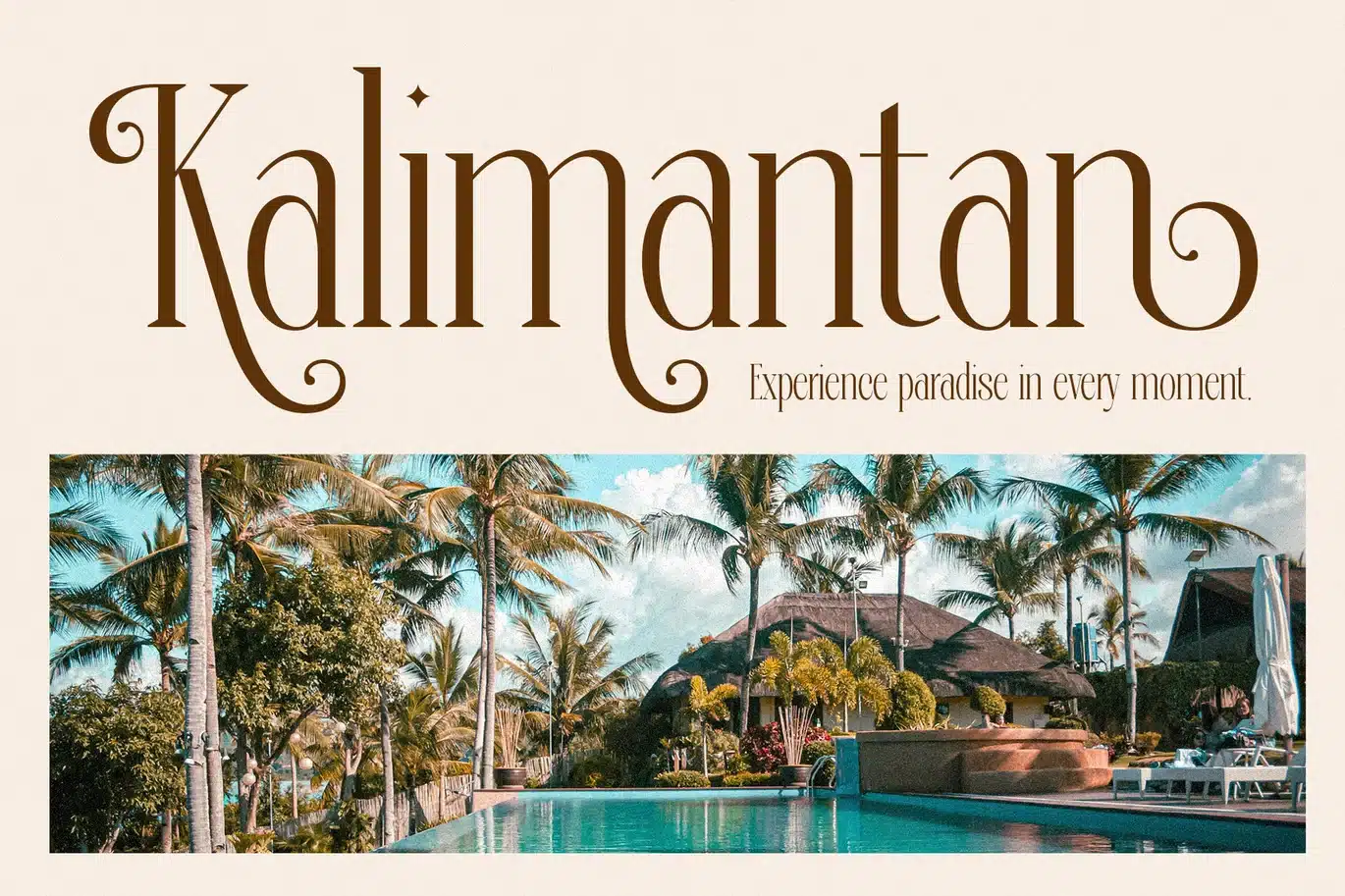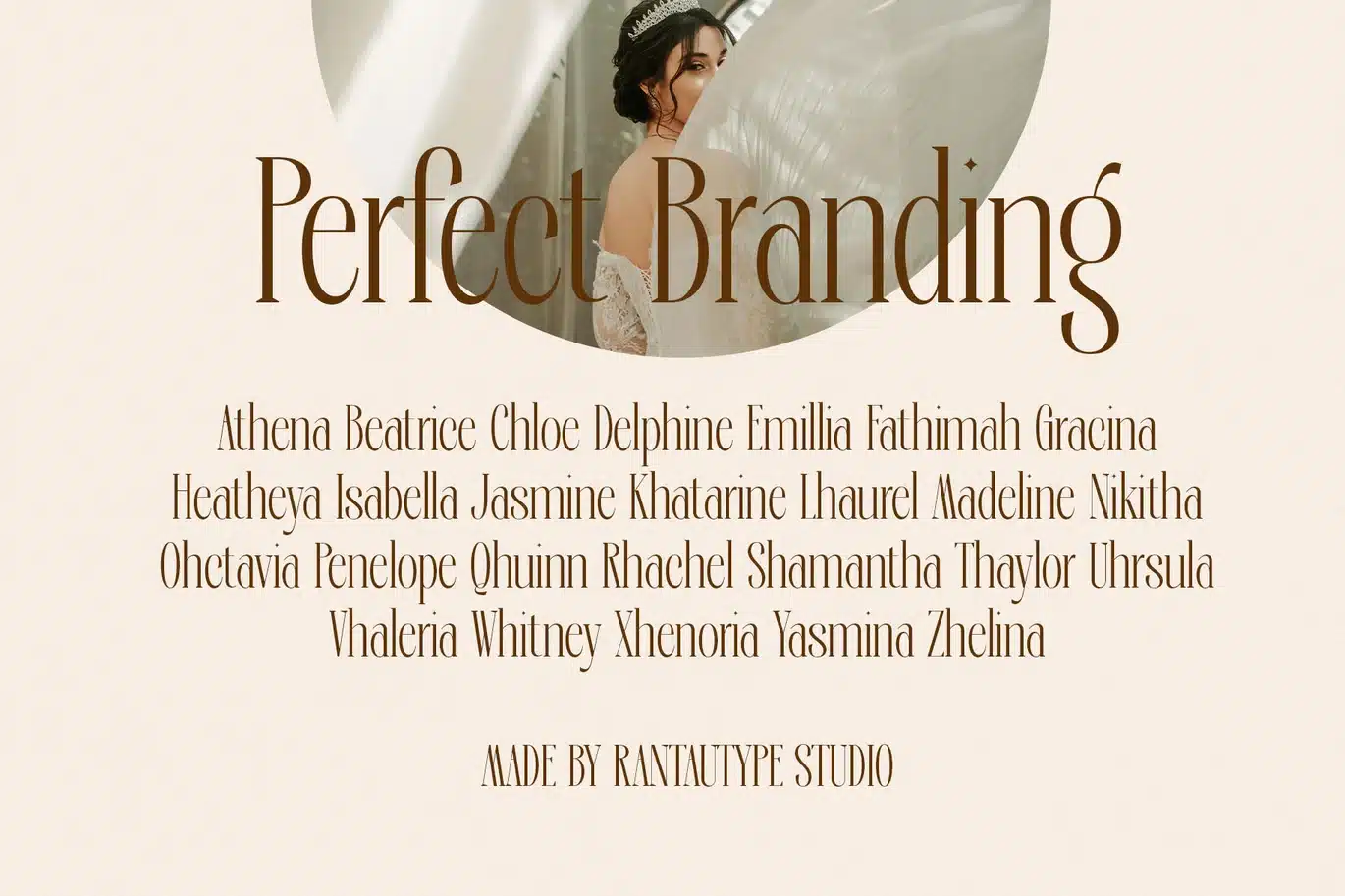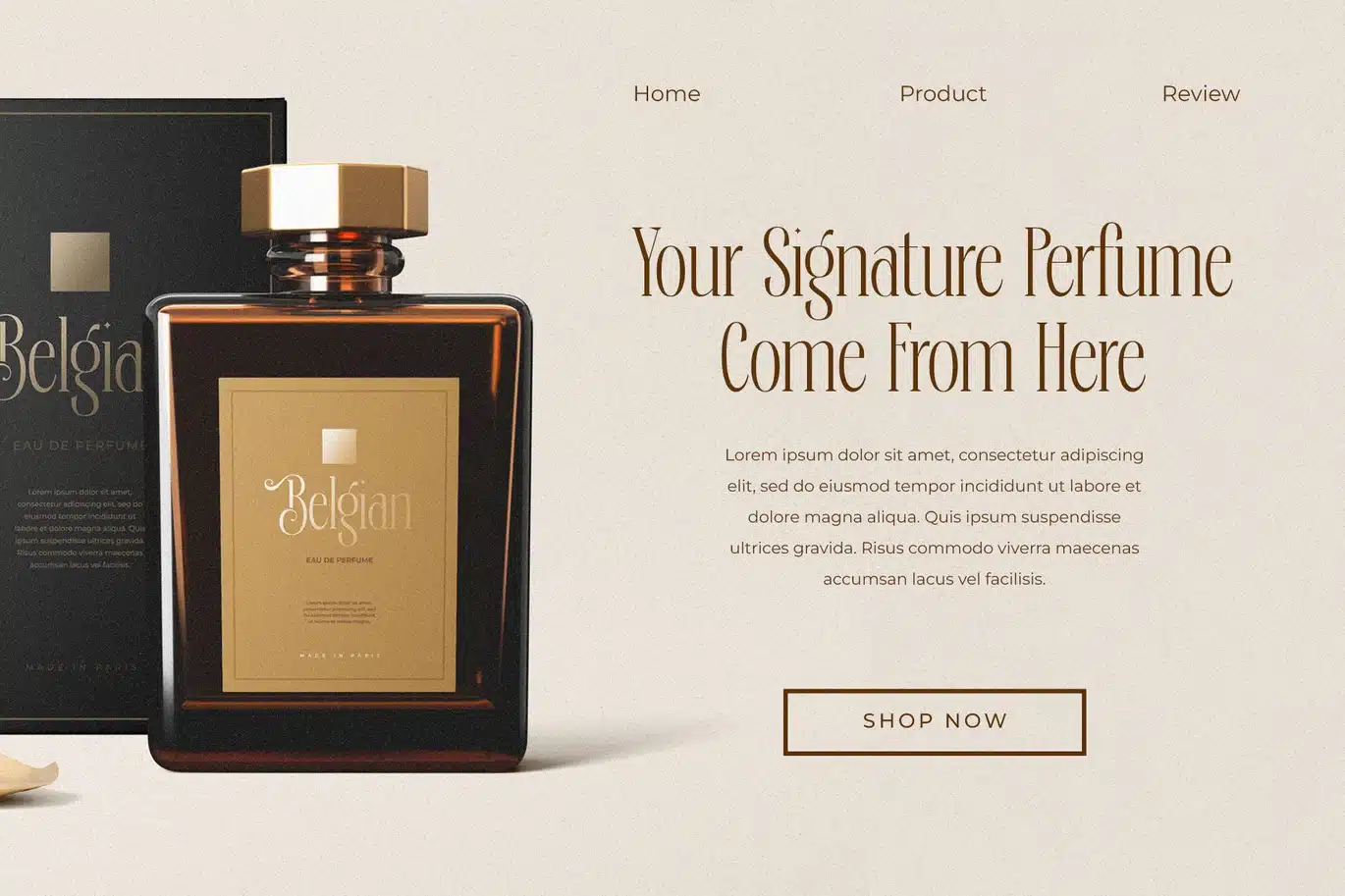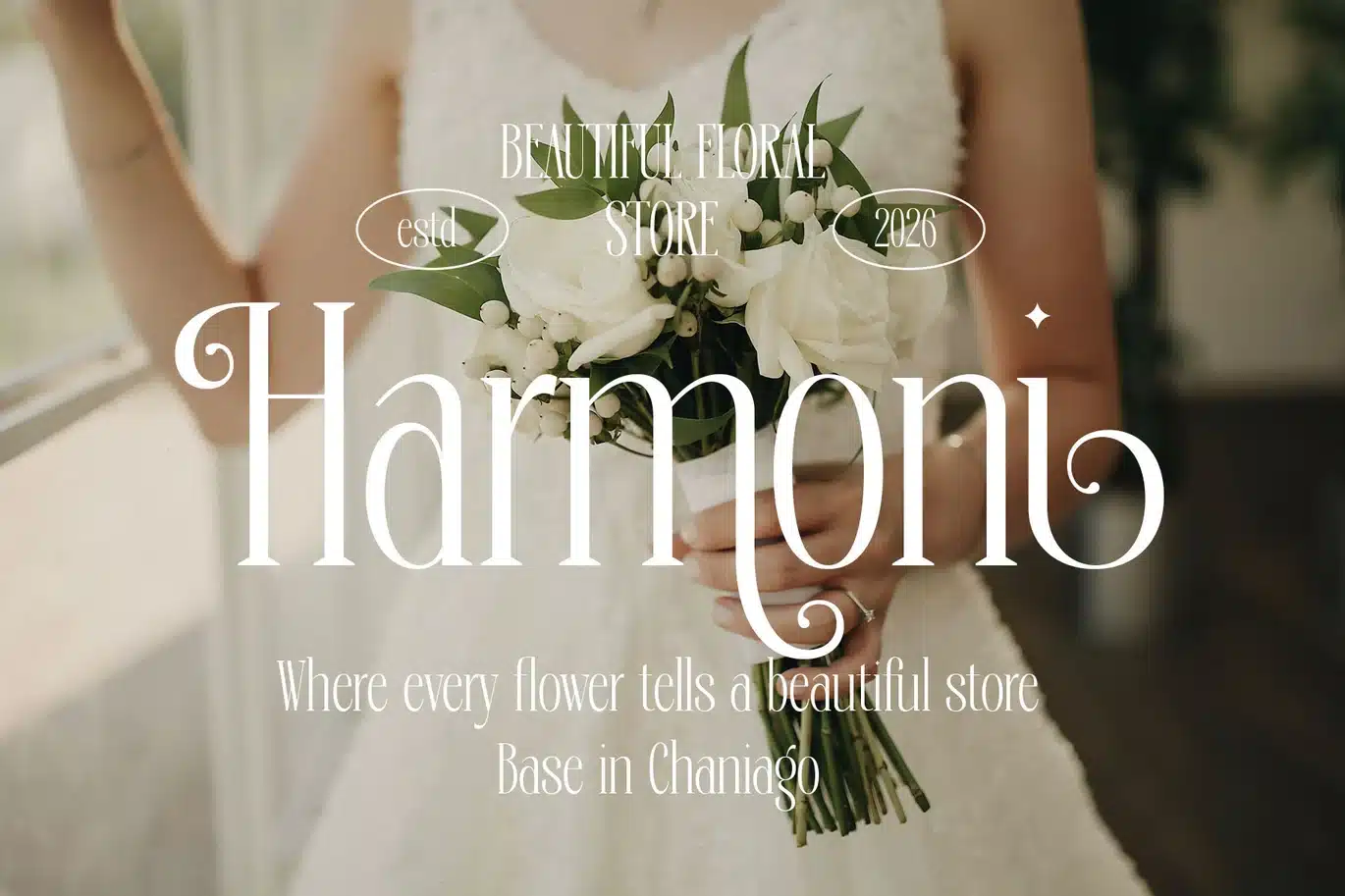
Deronia Beauty Branding Serif Font
Deronia is just not a font it's statement of identity, a reflection of character, and a vessel of emotion woven into every curve and line. Beyond its refined strokes and graceful serifs, it carries a deeper purpose: to transform simple words into meaningful experiences.
Deronia is a perfectly choice for any creative endeavor, creating, modern, lifestyle design such as logotype, title, cover, branding, invitations, wedding designs, display and magazine, social media posts, advertisements, printed quotes, product packaging, corporate brand, product designs, labels, photography, watermarks, special events and any other project with elegant touch.
- Alternate and Ligature
- Support Multilingual Character